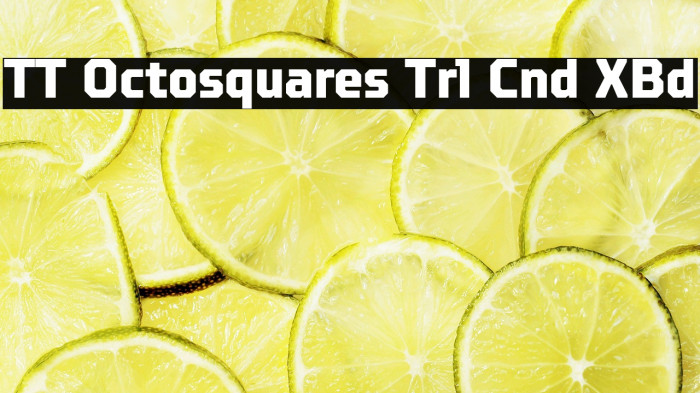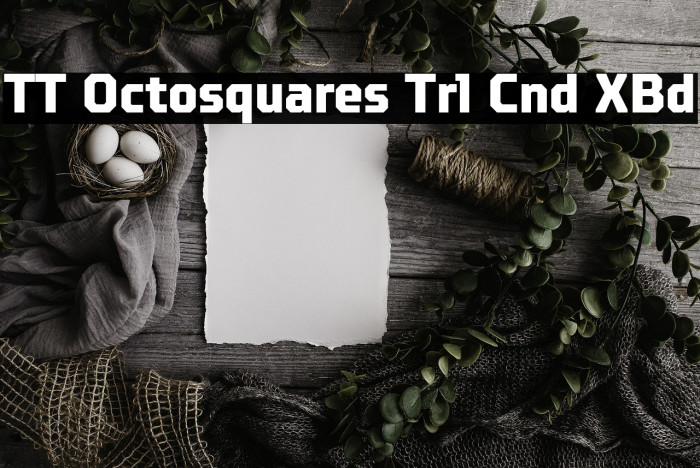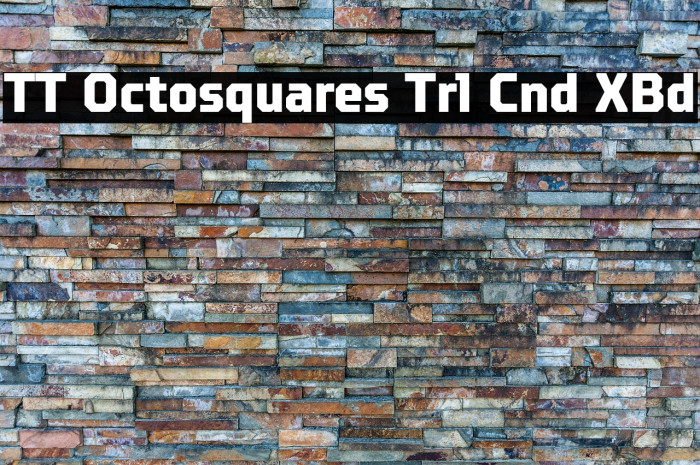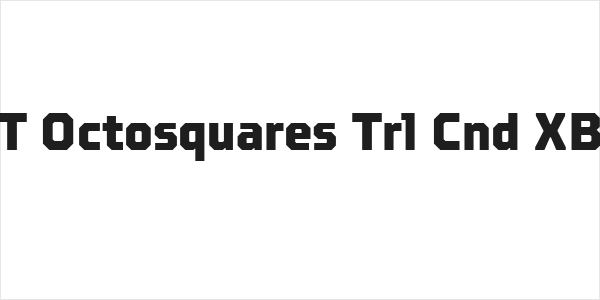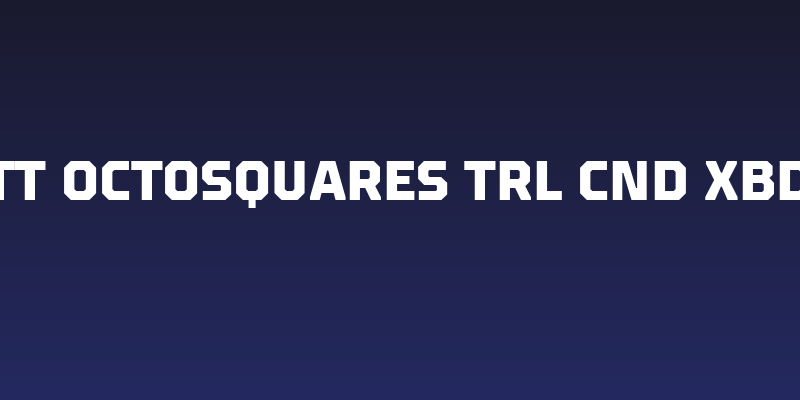
TT Octosquares Trl Cnd XBd Font
TT Octosquares Trl Cnd XBd Description
This font features a bold, geometric design with a strong emphasis on angular shapes and straight lines. The characters are uniformly constructed with a consistent width, giving it a monospaced appearance. The uppercase and lowercase letters maintain a cohesive style, with sharp corners and a blocky aesthetic. The numerals and special characters follow the same design principles, ensuring a harmonious look across all glyphs. The font's robust and modern appearance makes it suitable for projects that require a strong visual impact.
| Proposed Projects | Ideal for branding, posters, headlines, and digital interfaces that require a modern and impactful typeface. |